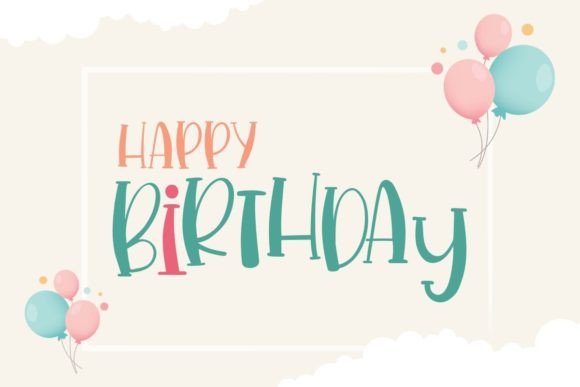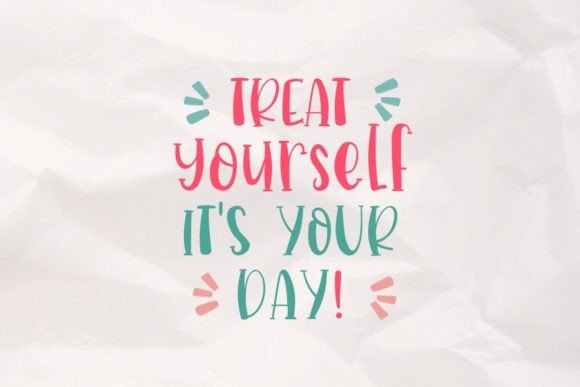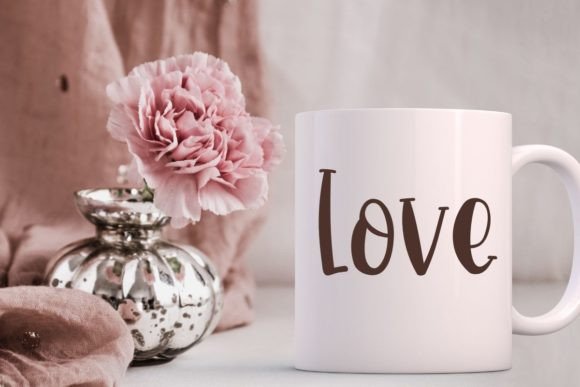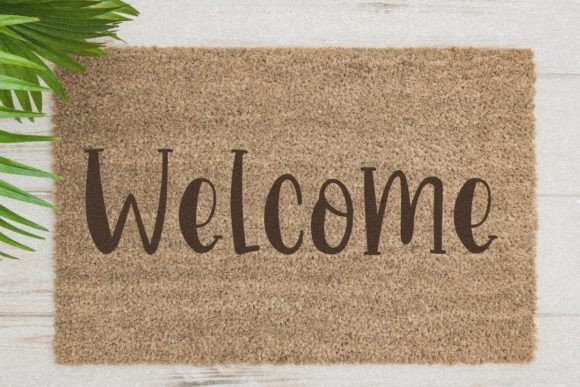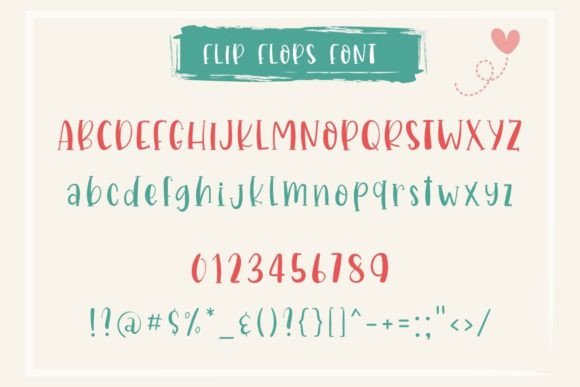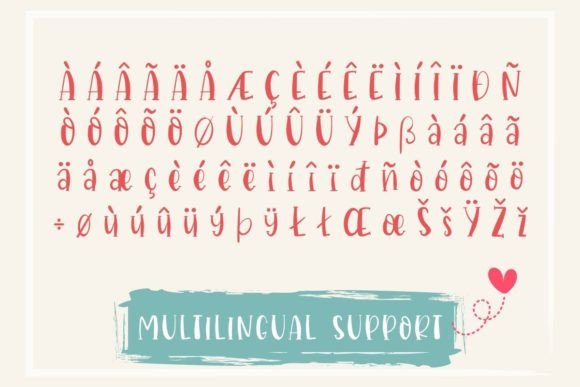
Introducing Flip Flops Font: The Perfect Blend of Whimsy and Sophistication
Are you tired of using the same old fonts in your designs? Look no further! The Flip Flops font is here to add a touch of playfulness and sophistication to your creative projects. This delightful typeface combines the charm of a handwritten style with the elegance of subtle serif details, making it perfect for designers and crafters alike.
The Characteristics of Flip Flops Font
The Flip Flops font is a unique and refreshing addition to the world of typography. Its most notable features include:
• Cute Handwritten Style: The font boasts a warm and friendly appearance, reminiscent of handwritten text. Its informal and approachable vibe makes it perfect for designs that require a personal touch.
• Subtle Serif Details: What sets Flip Flops apart from other handwritten fonts is its subtle serif details. These small flourishes add a level of sophistication and elegance, making the font suitable for a wide range of applications.
• Playful and Whimsical: The Flip Flops font is designed to bring a smile to people’s faces. Its playful and whimsical nature makes it perfect for designs that require a touch of fun and personality.
Uses for Flip Flops Font
The versatility of the Flip Flops font makes it suitable for a wide range of creative projects. Here are some ideas to get you started:
• Invitations: Add a touch of whimsy to your party invitations, wedding invitations, or baby shower invites with the Flip Flops font.
• Greeting Cards: Create personalized and playful greeting cards for birthdays, holidays, or special occasions.
• Social Media Graphics: Use the Flip Flops font to create engaging social media graphics, such as quote graphics, motivational posts, or fun announcements.
• Branding and Packaging: The Flip Flops font can add a touch of personality to your brand’s packaging, labels, or marketing materials.
Why Choose Flip Flops Font?
With so many fonts available, why choose Flip Flops? Here are a few reasons why this font stands out:
• Unique and Eye-Catching: The Flip Flops font is sure to capture attention and leave a lasting impression on your audience.
• Versatile: The font’s playful and sophisticated nature makes it suitable for a wide range of applications and industries.
• Easy to Read: Despite its playful nature, the Flip Flops font is easy to read and understand, making it perfect for body text or headings.
Tips for Using Flip Flops Font
To get the most out of the Flip Flops font, here are a few tips to keep in mind:
• Pair it with Other Fonts: Experiment with pairing the Flip Flops font with other fonts to create a unique and visually appealing combination.
• Use it for Headings and Titles: The Flip Flops font is perfect for headings and titles, where its playful and whimsical nature can shine.
• Experiment with Colors: Don’t be afraid to experiment with different colors and textures to add depth and interest to your designs.
The Flip Flops font is a delightful and versatile typeface that is sure to bring a touch of whimsy and sophistication to your designs. With its unique combination of a cute handwritten style and subtle serif details, this font is perfect for designers and crafters looking to add a personal touch to their creative projects. Whether you’re designing invitations, greeting cards, or social media graphics, the Flip Flops font is sure to capture attention and spread joy.